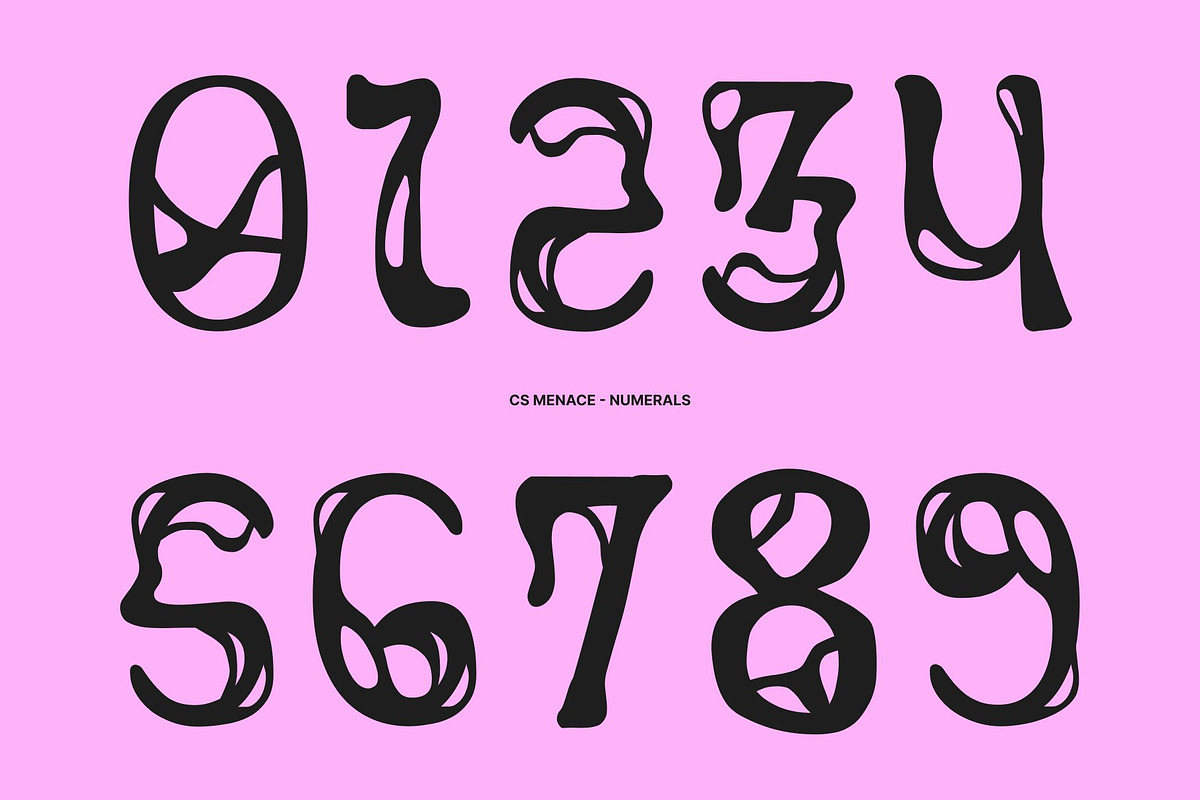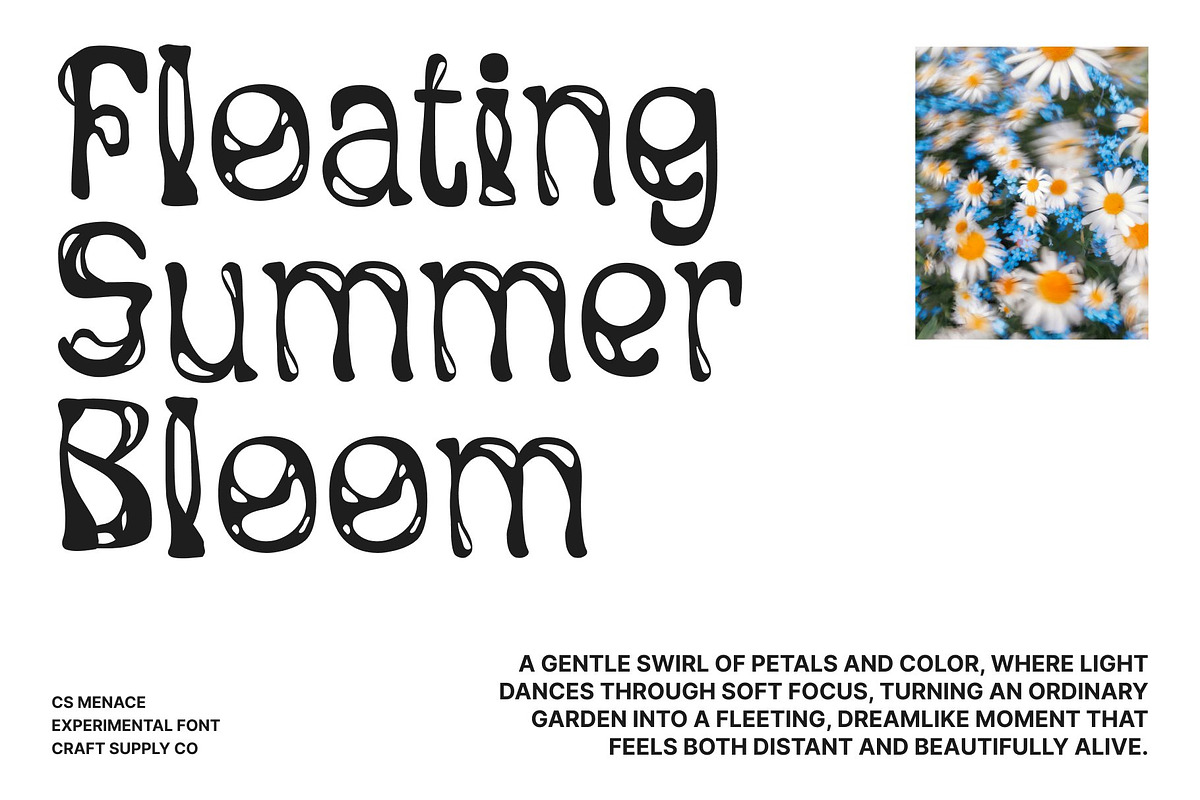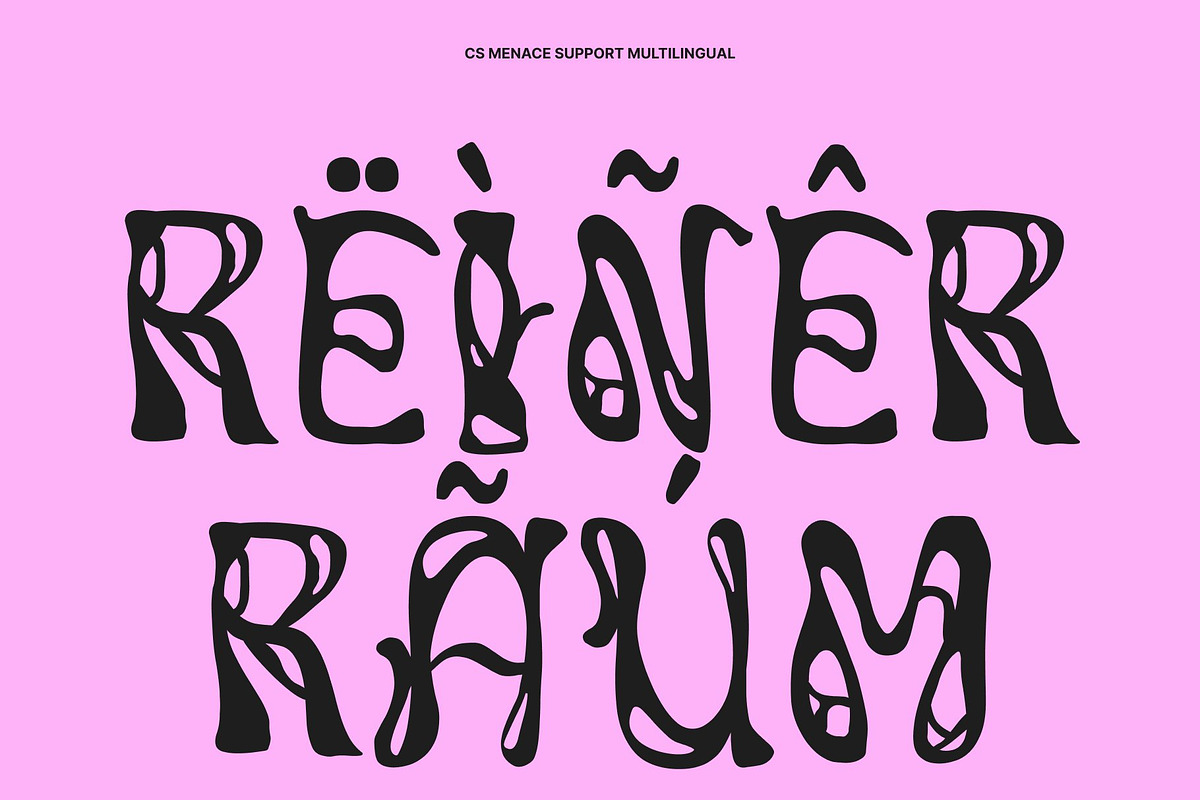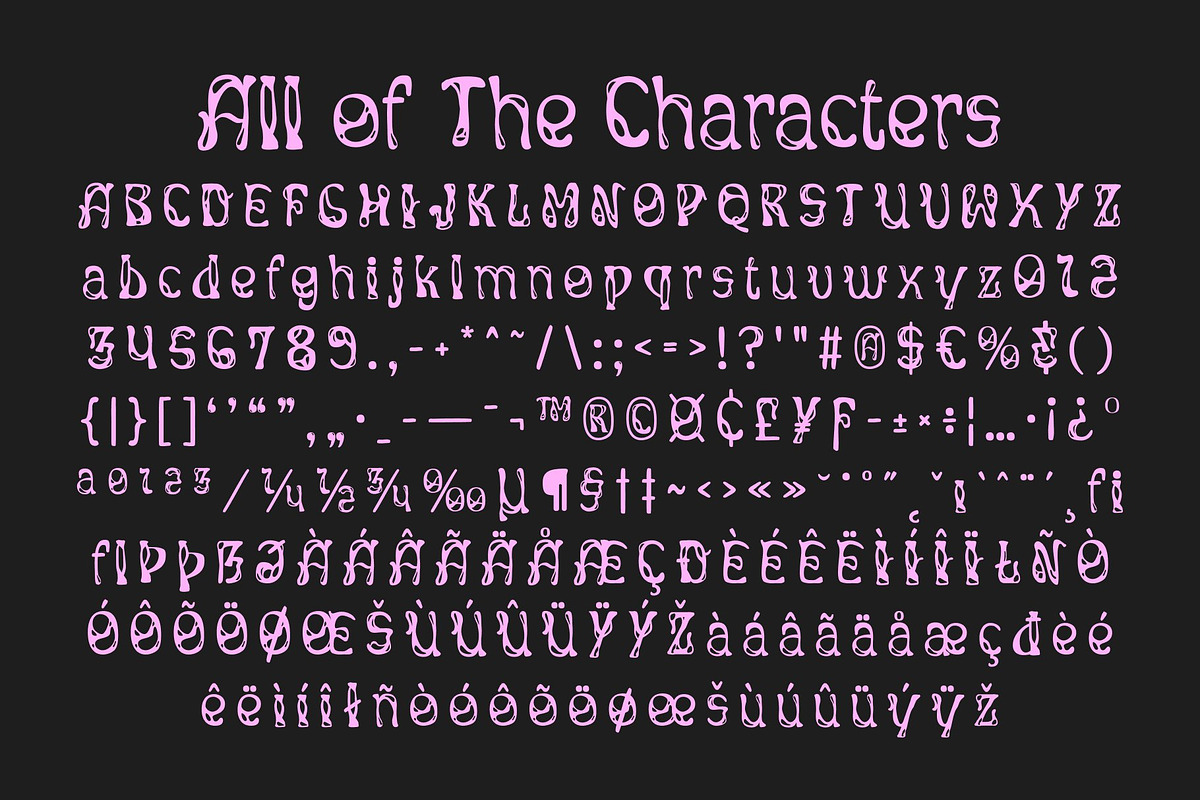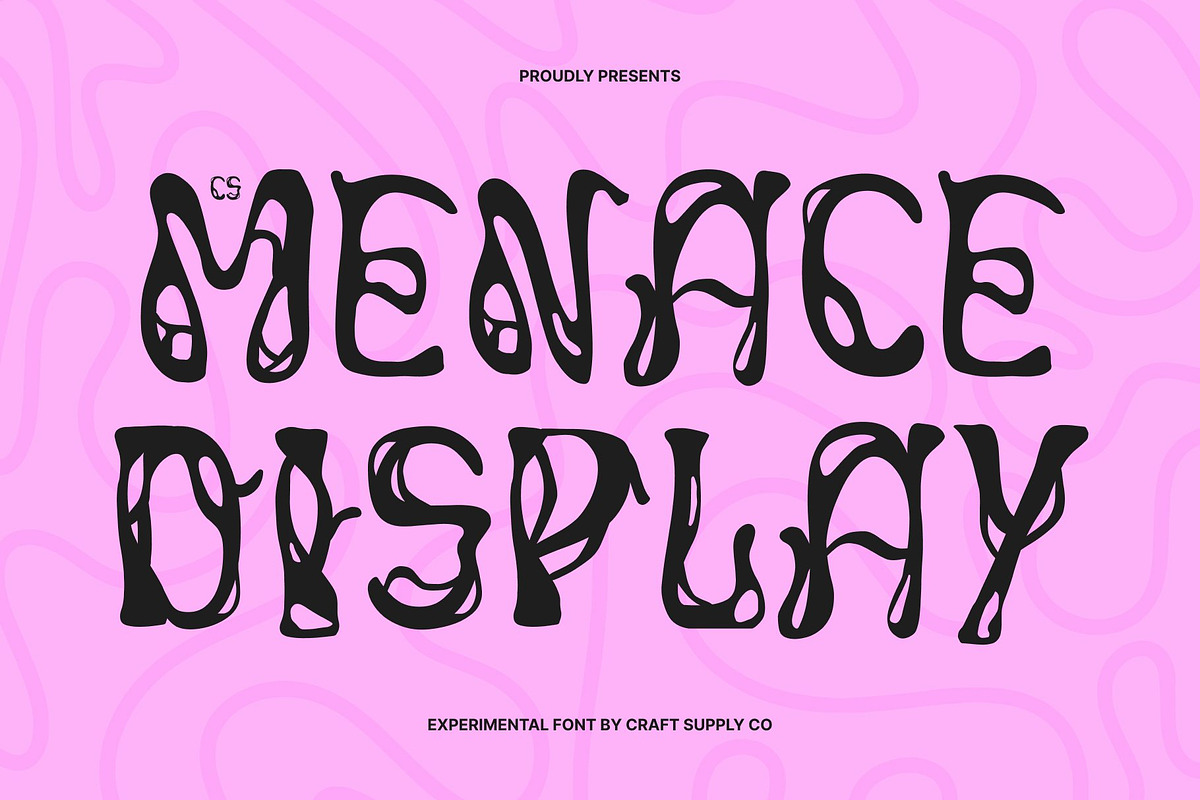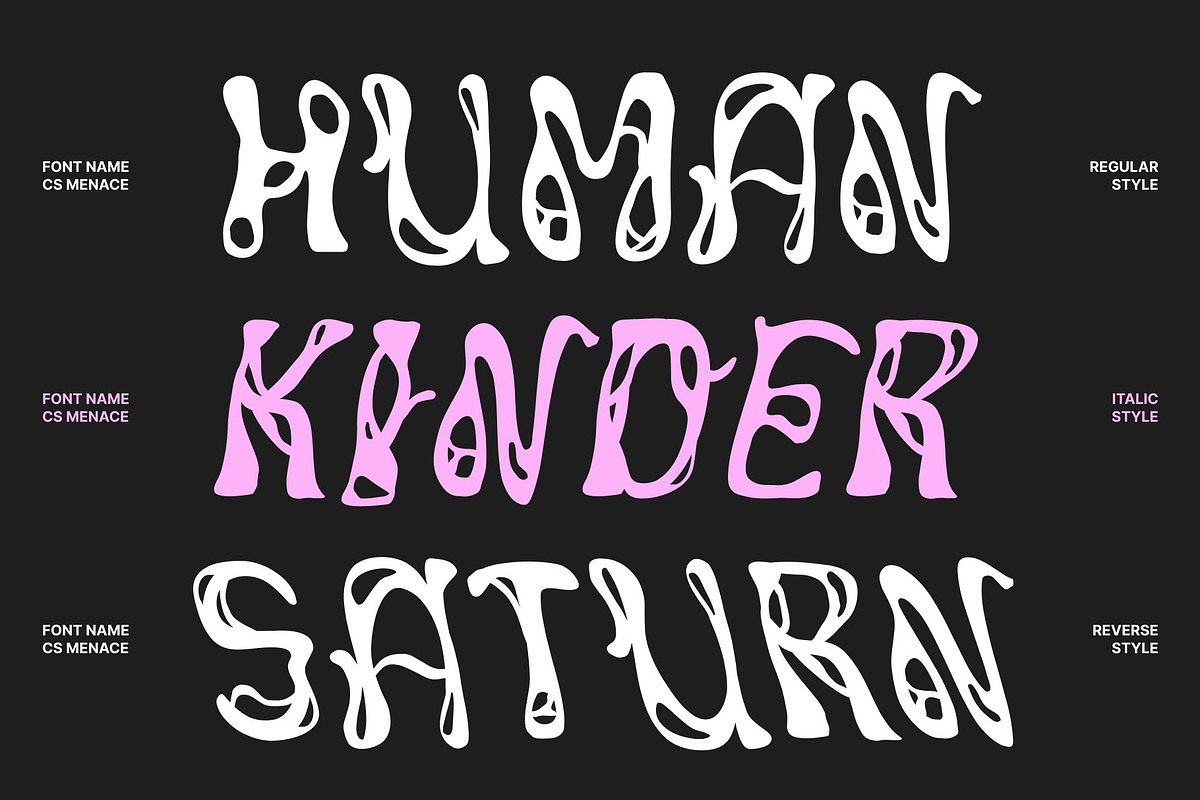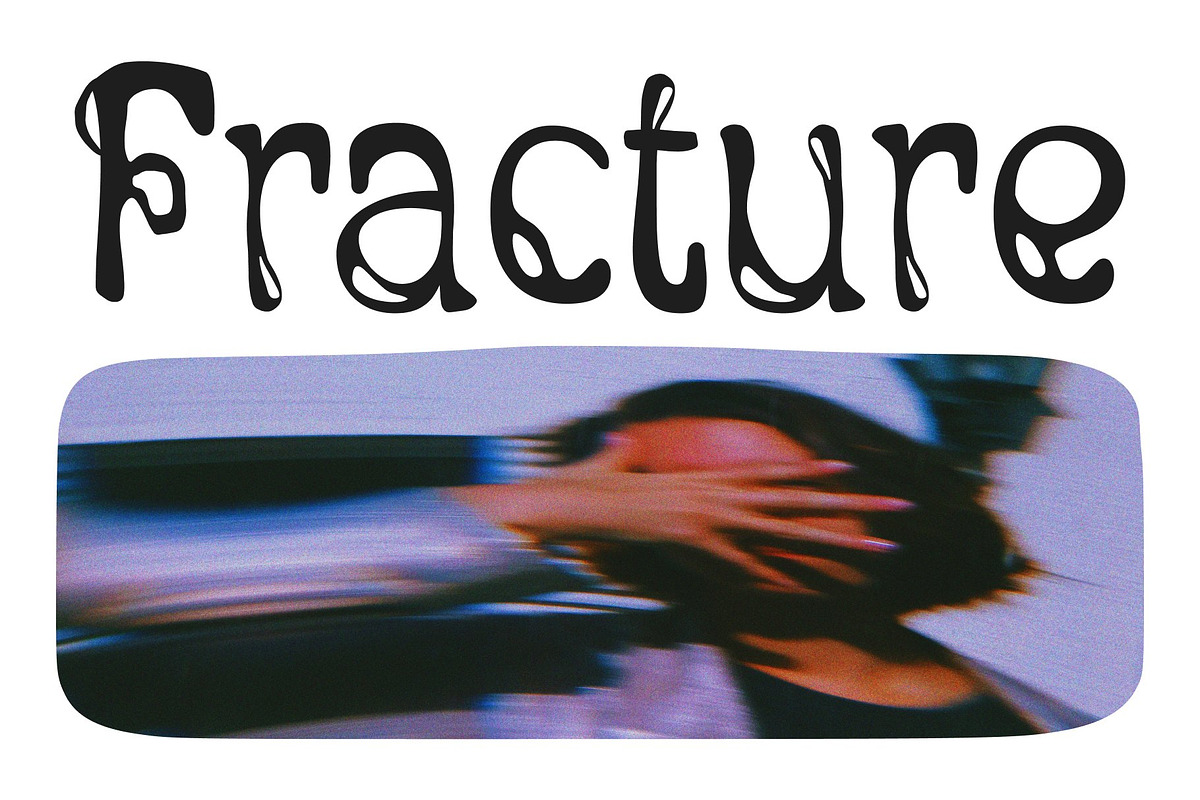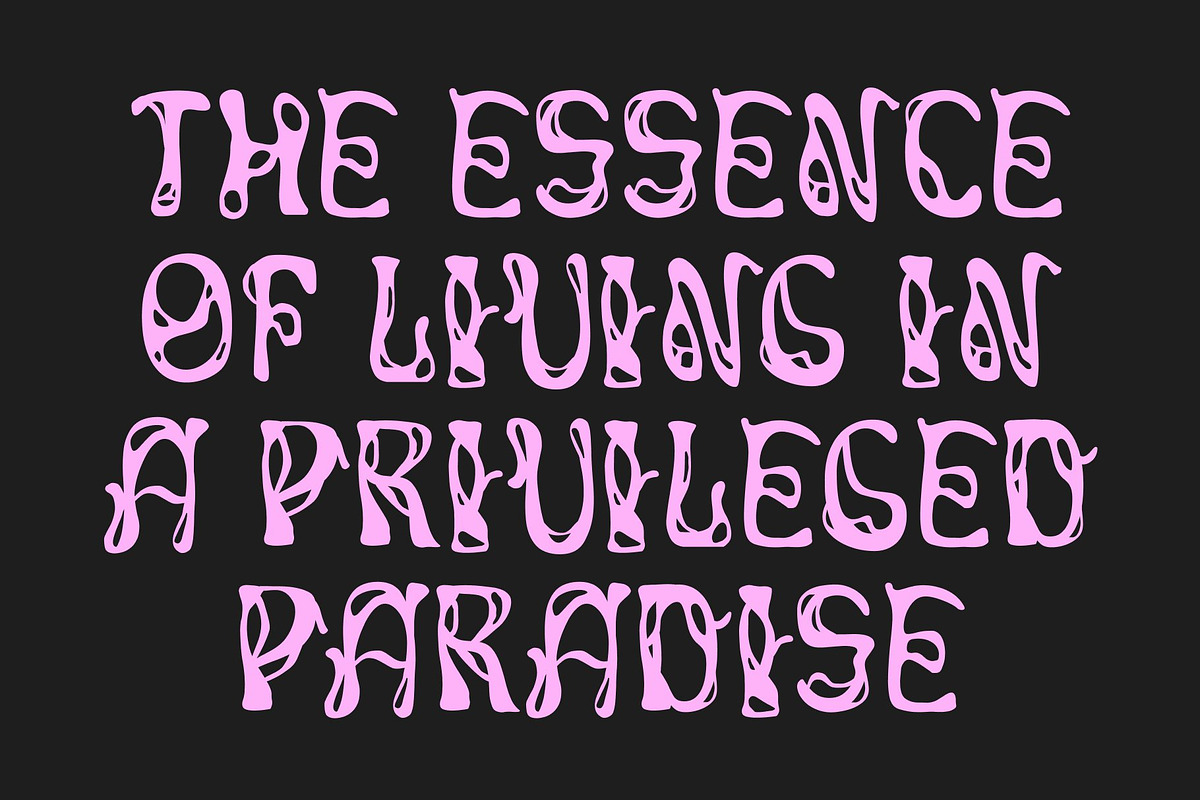
CS Menace – Experimental Font
CS Menace – Melted Display Sans Serif with Experimental Flow
Display Sans Serif with Unique Melted Concept This is a display sans serif font that transforms modern typography into a bold artistic statement. Designed with a distinctive melted concept, this typeface blends clean sans serif structure with experimental creativity. The result is a font that feels expressive, unconventional, and instantly eye-catching, perfect for designers who want to push visual boundaries.
Fluid Letterforms with Dripping Movement The defining feature of this font lies in its flowing, melted letterforms that appear to drip and move with dynamic energy. This fluid effect introduces a sense of motion and organic rhythm, turning every word into a striking visual element. The combination of modern structure and liquid distortion creates a captivating contrast that feels both contemporary and artistic.
Expressive Personality with Bold Character This font radiates creativity through its unusual shapes and playful irregularities. The font commands attention and makes headlines feel dramatic, energetic, and full of personality. Its experimental style invites designers to explore bold visual storytelling while maintaining clarity and readability.
Perfect for Standout Creative Projects Ideal for posters, album covers, branding, social media graphics, and experimental editorial layouts, this font brings a modern twist to classic typography. Its melted aesthetic ensures every design feels memorable, dynamic, and visually powerful, making it the perfect choice for projects that aim to stand out.
CS Menace Regular
CS Menace Italic
CS Menace Reverse Italic